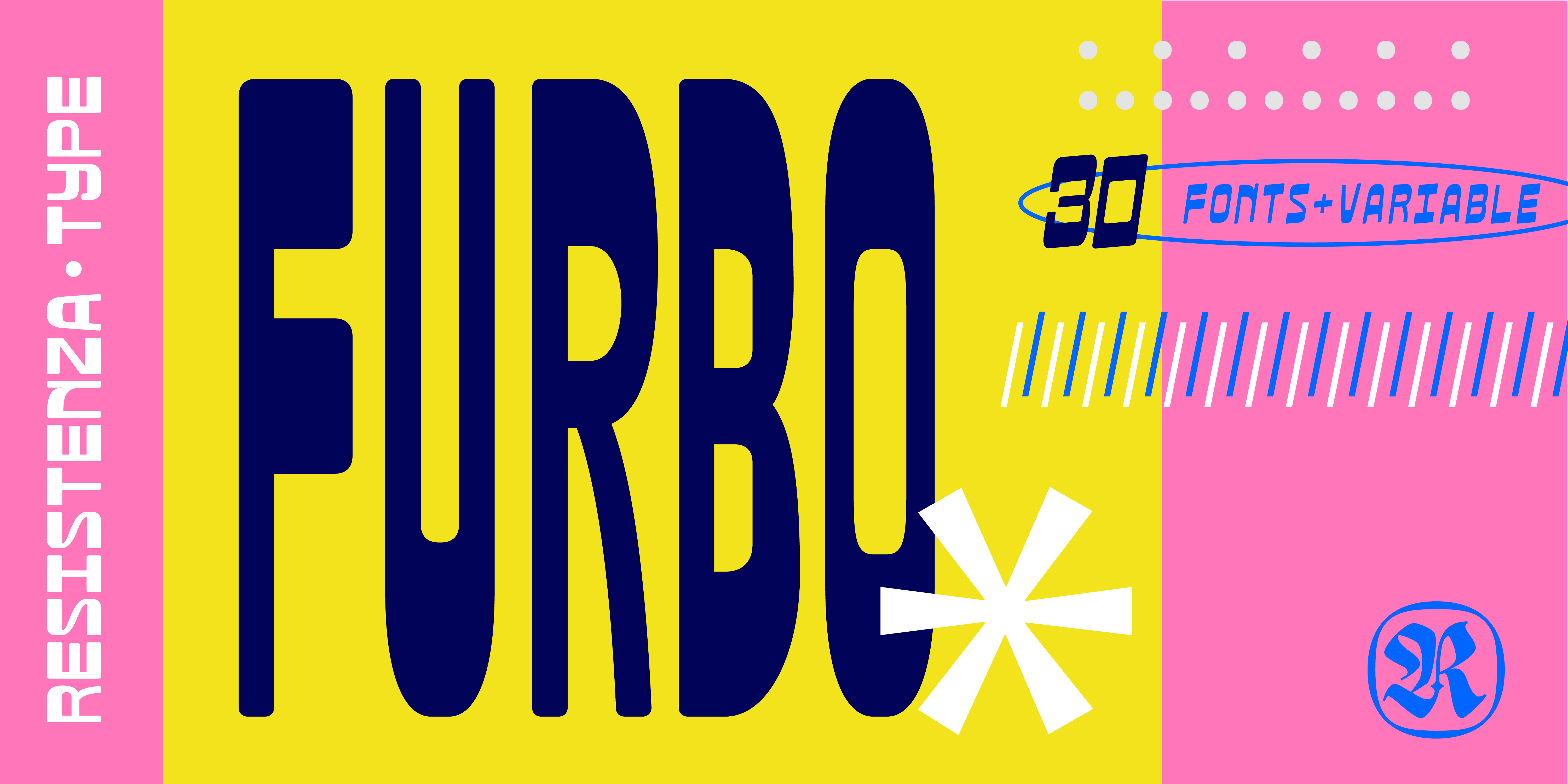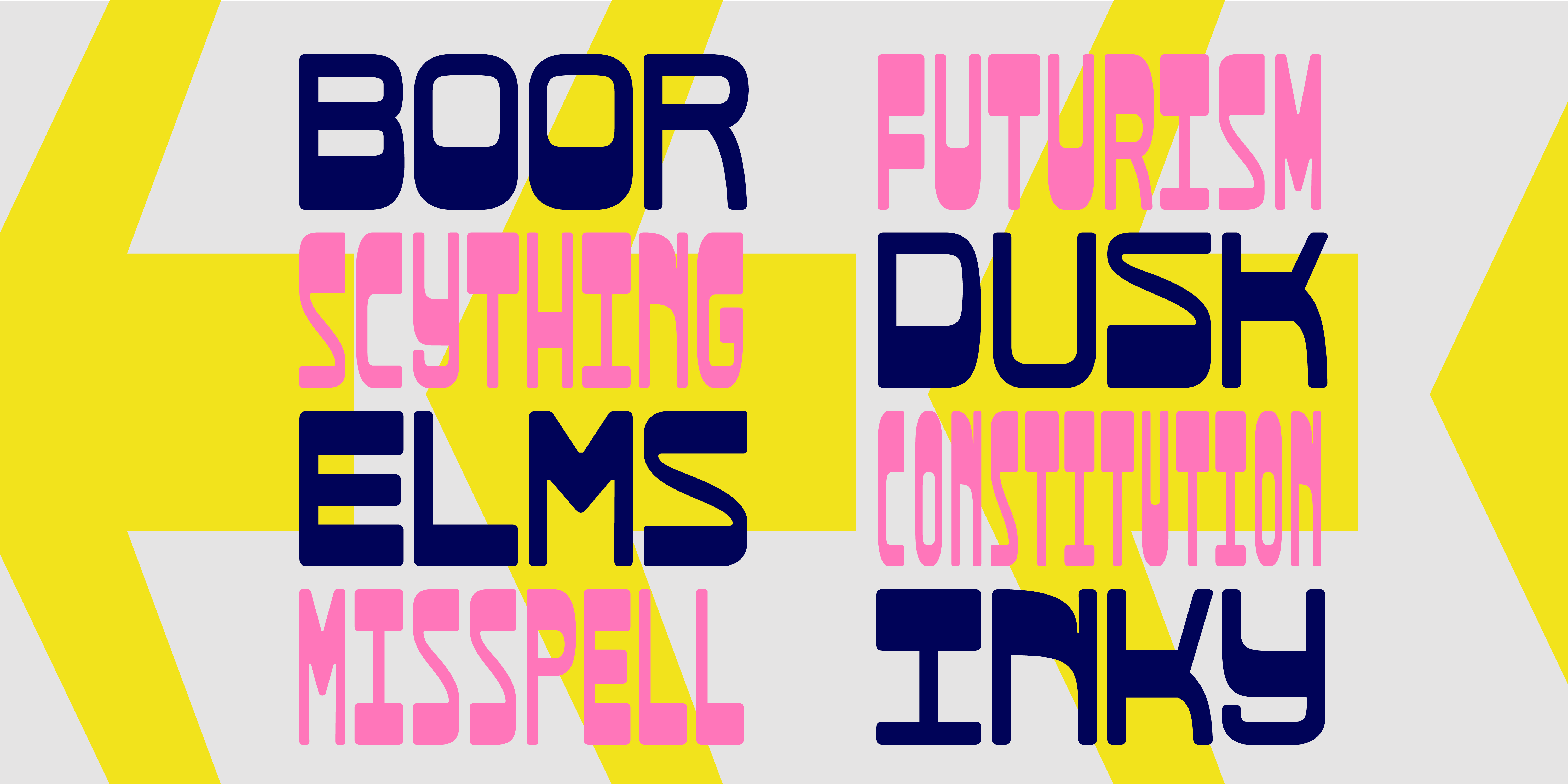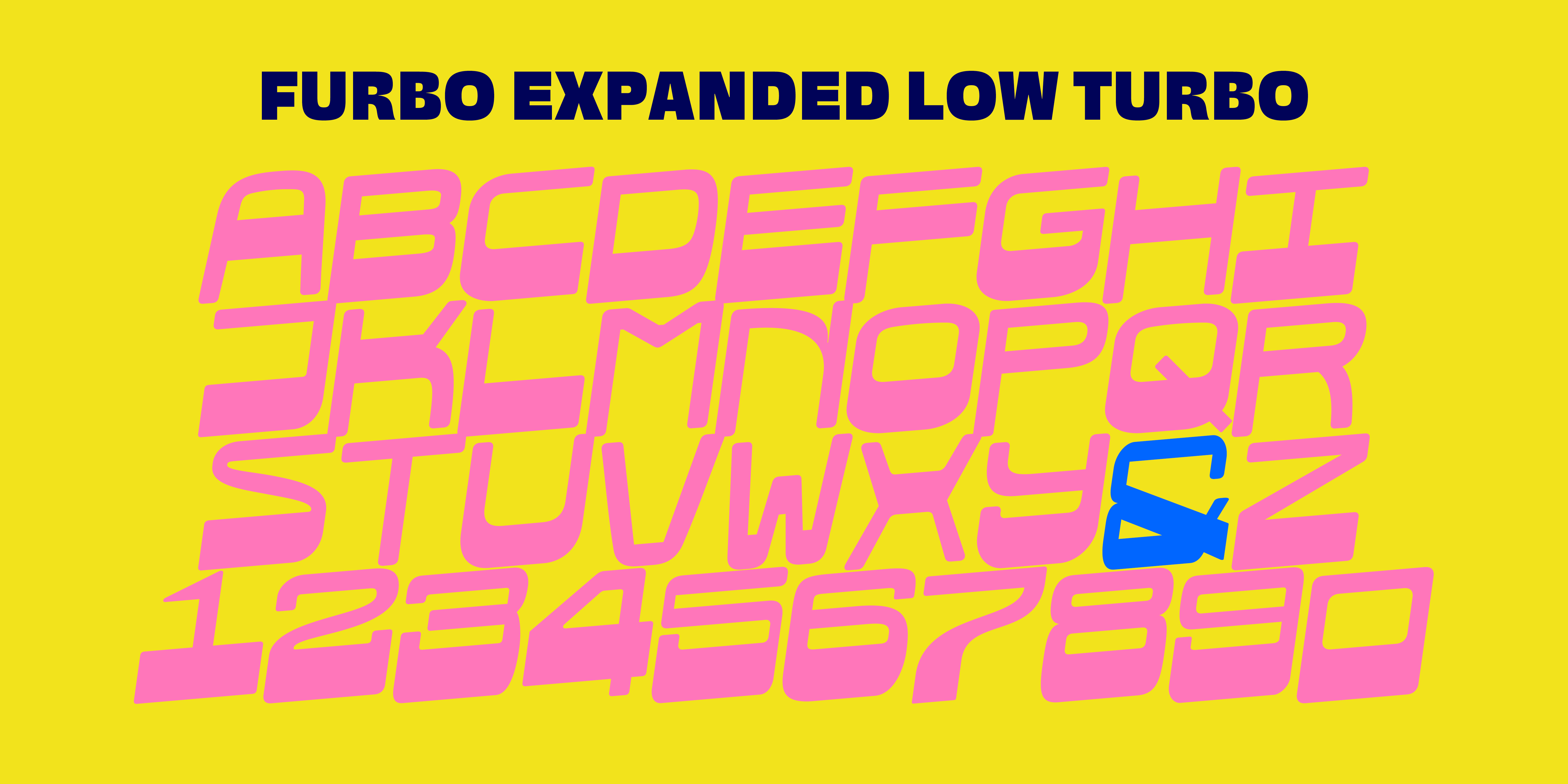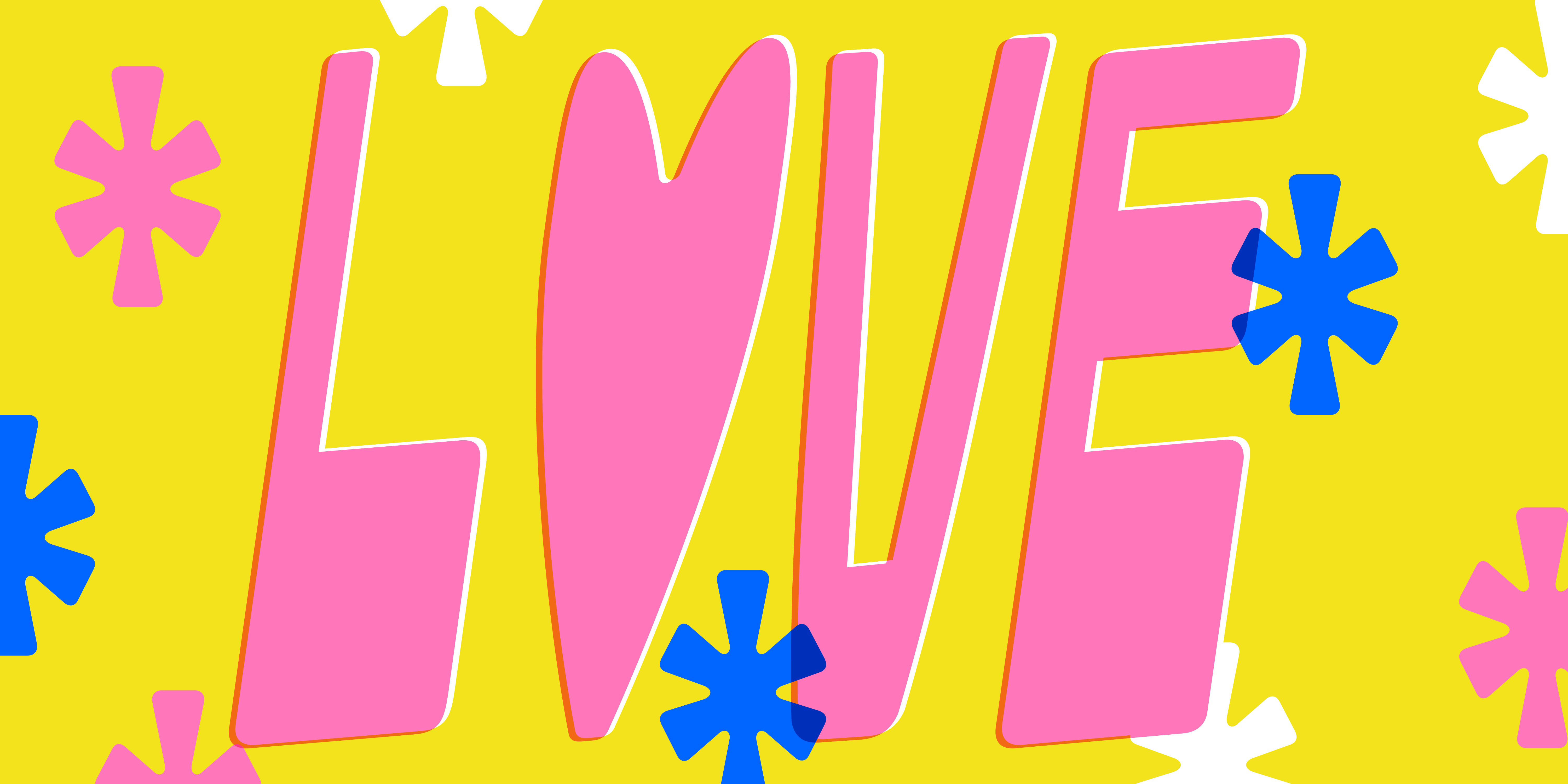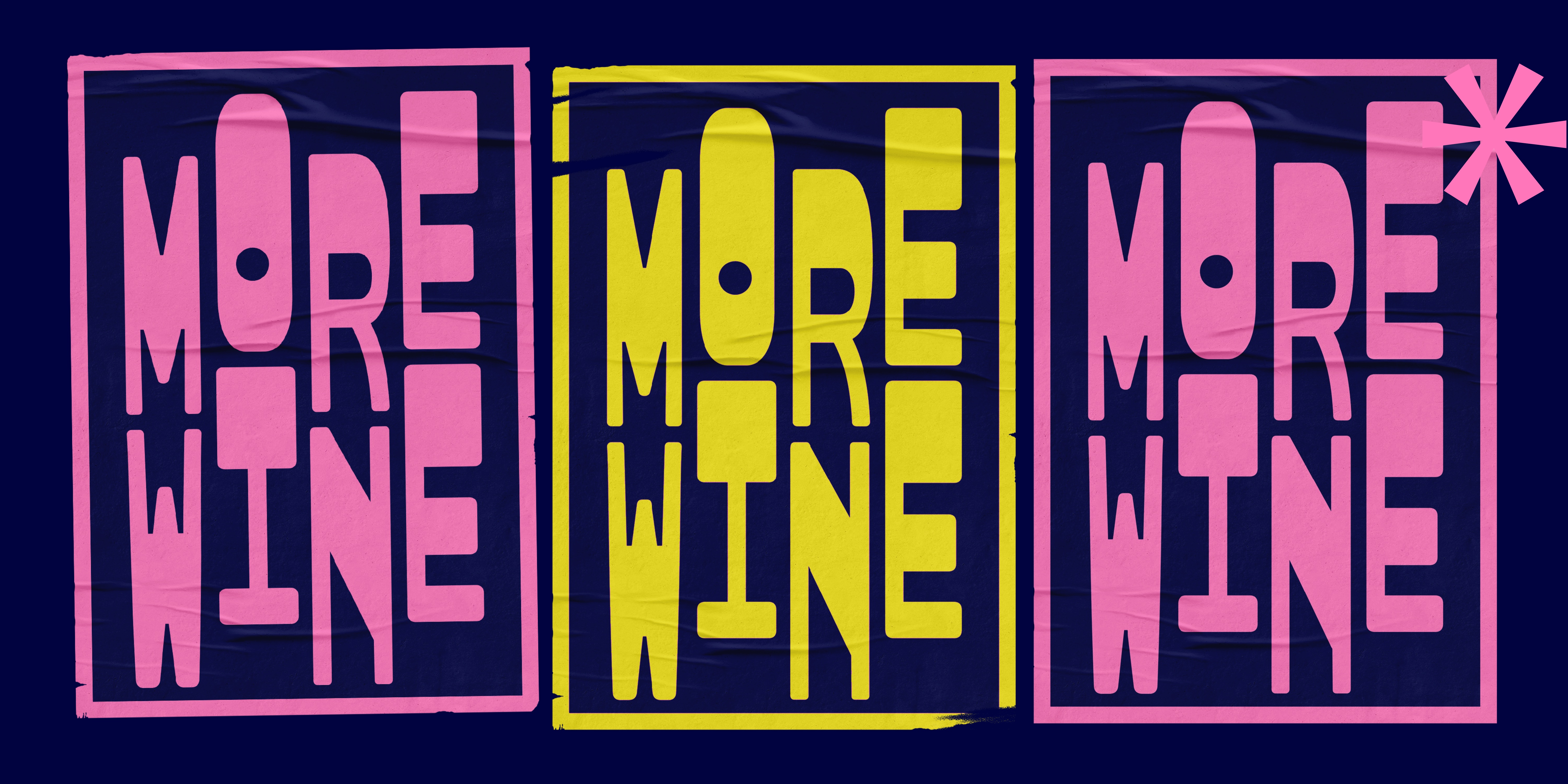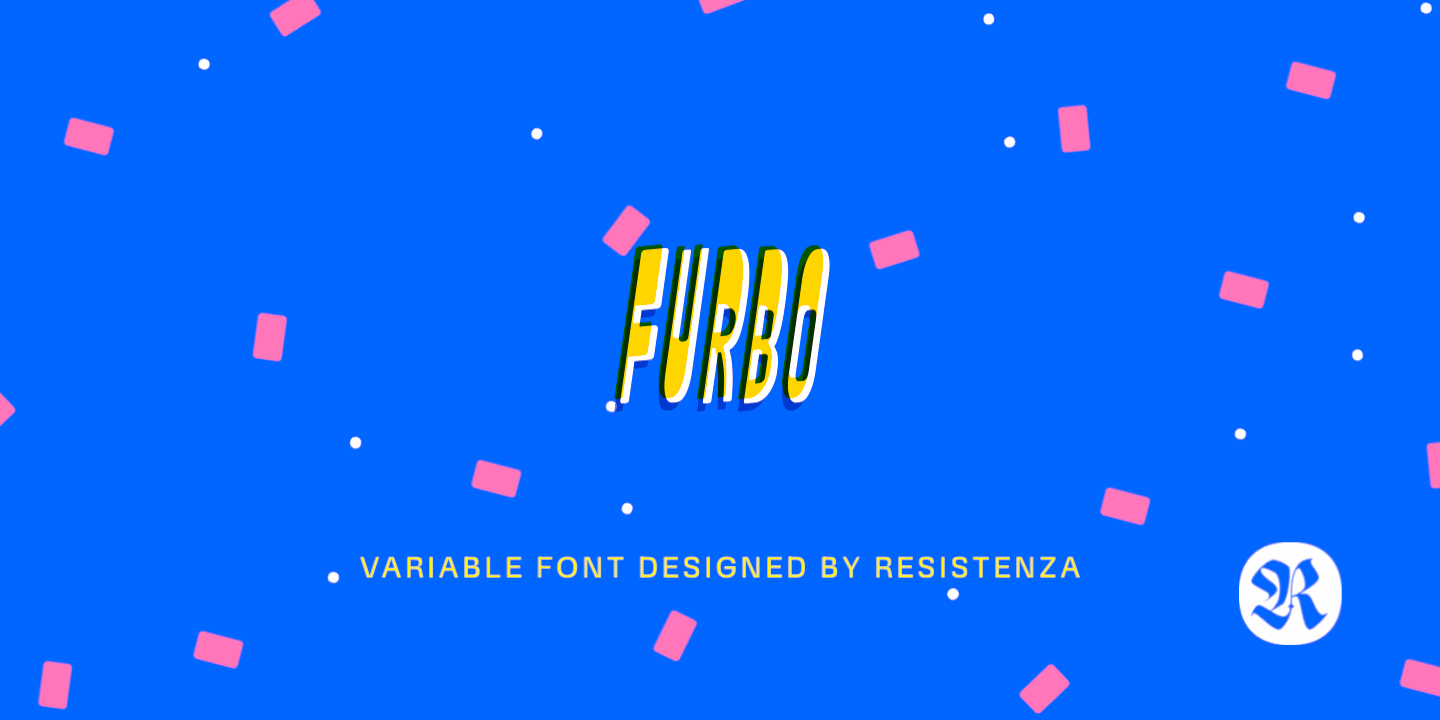
Furbo Collection
Furbo
Furbo Variable
A 3 axed Variable Monospaced Font
Furbo
Designed by Resistenza Type Foundry
Looking for a bold monospaced font? Furbo is a typographic powerhouse—a variable monospaced typeface designed for bold expression. This font thrives on extremes, shifting effortlessly between condensed and extended forms.
Furbo features three powerful variable axes: Width, Contrast (high and low), and Turbo, giving you unparalleled control. With 30 static fonts and one variable font, the possibilities are endless.
With custom variable axes, Furbo creates kinetic compositions that pulse with energy. Its letterforms dance between rigid geometry and fluid distortion, making it ideal for:
Whether used for clean typography or wild effects, Furbo is perfect for designers seeking an unpredictable, dynamic, and bold font.